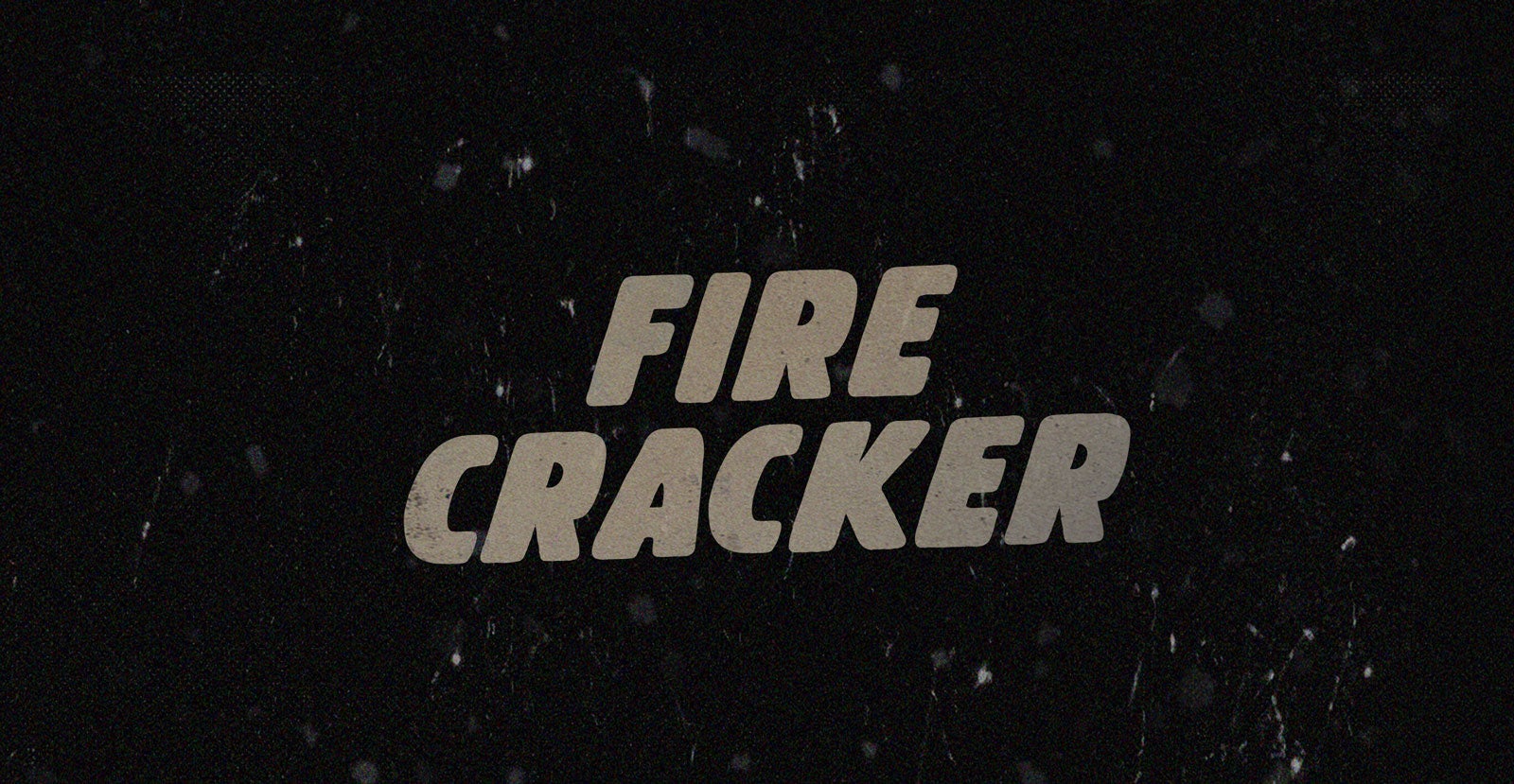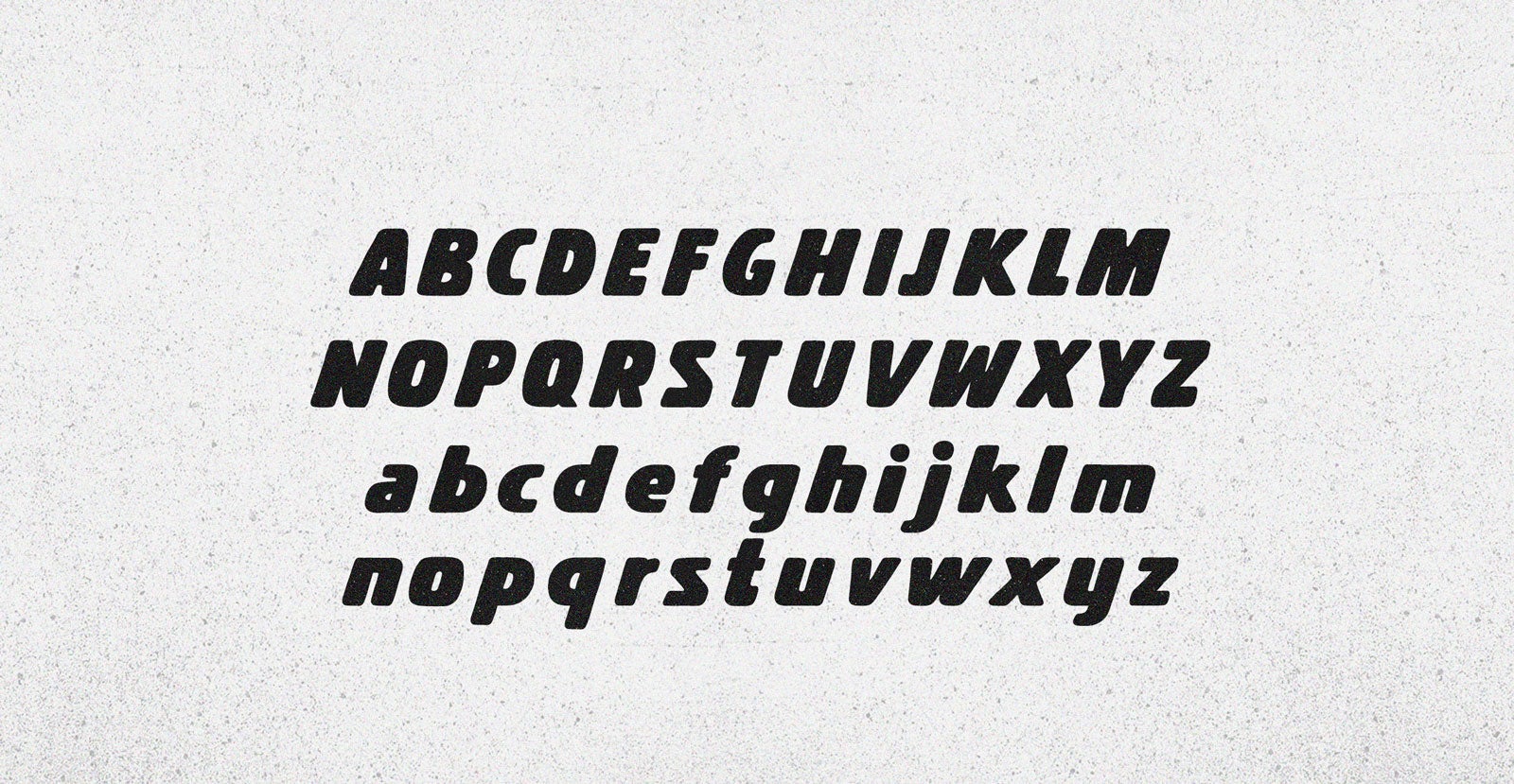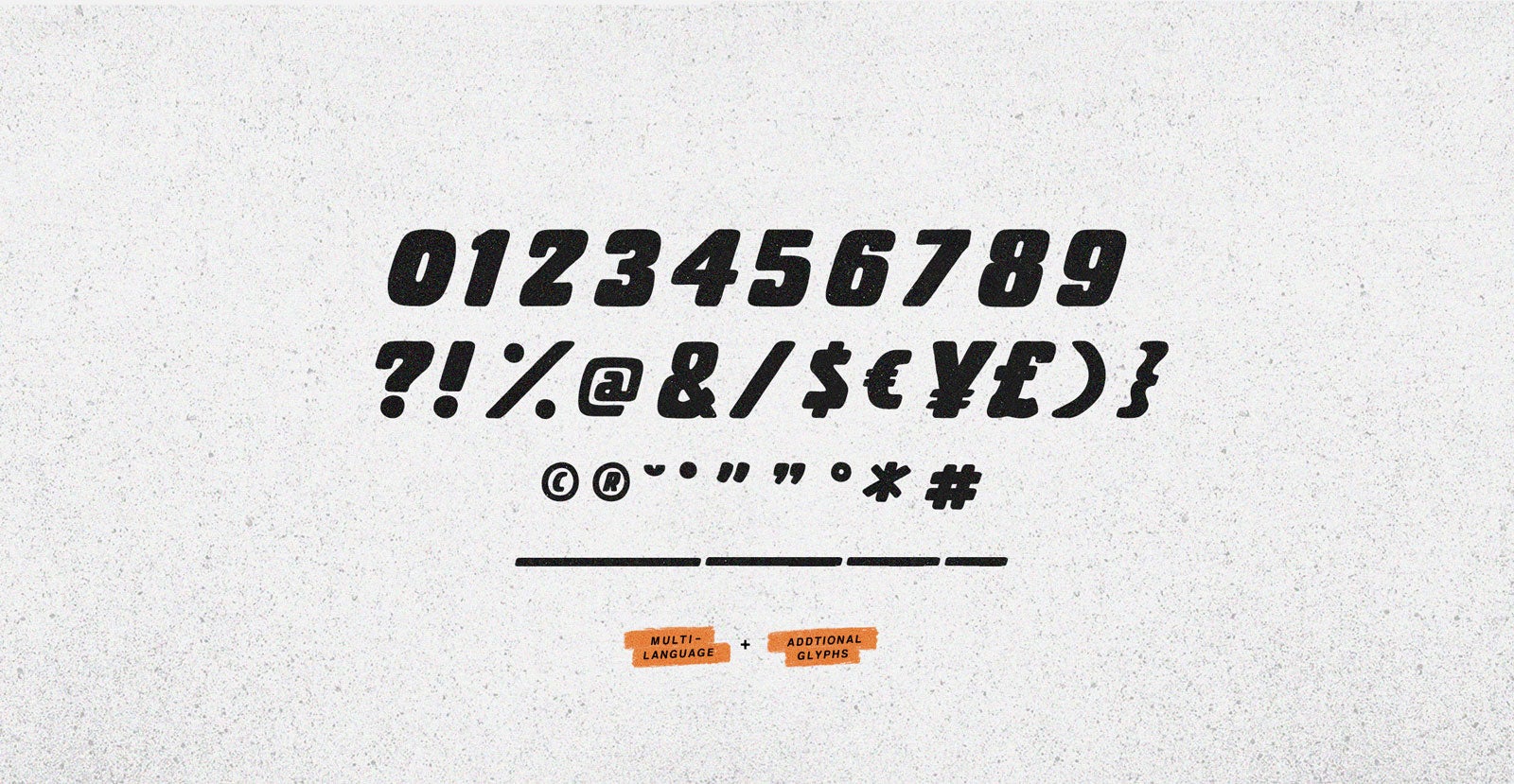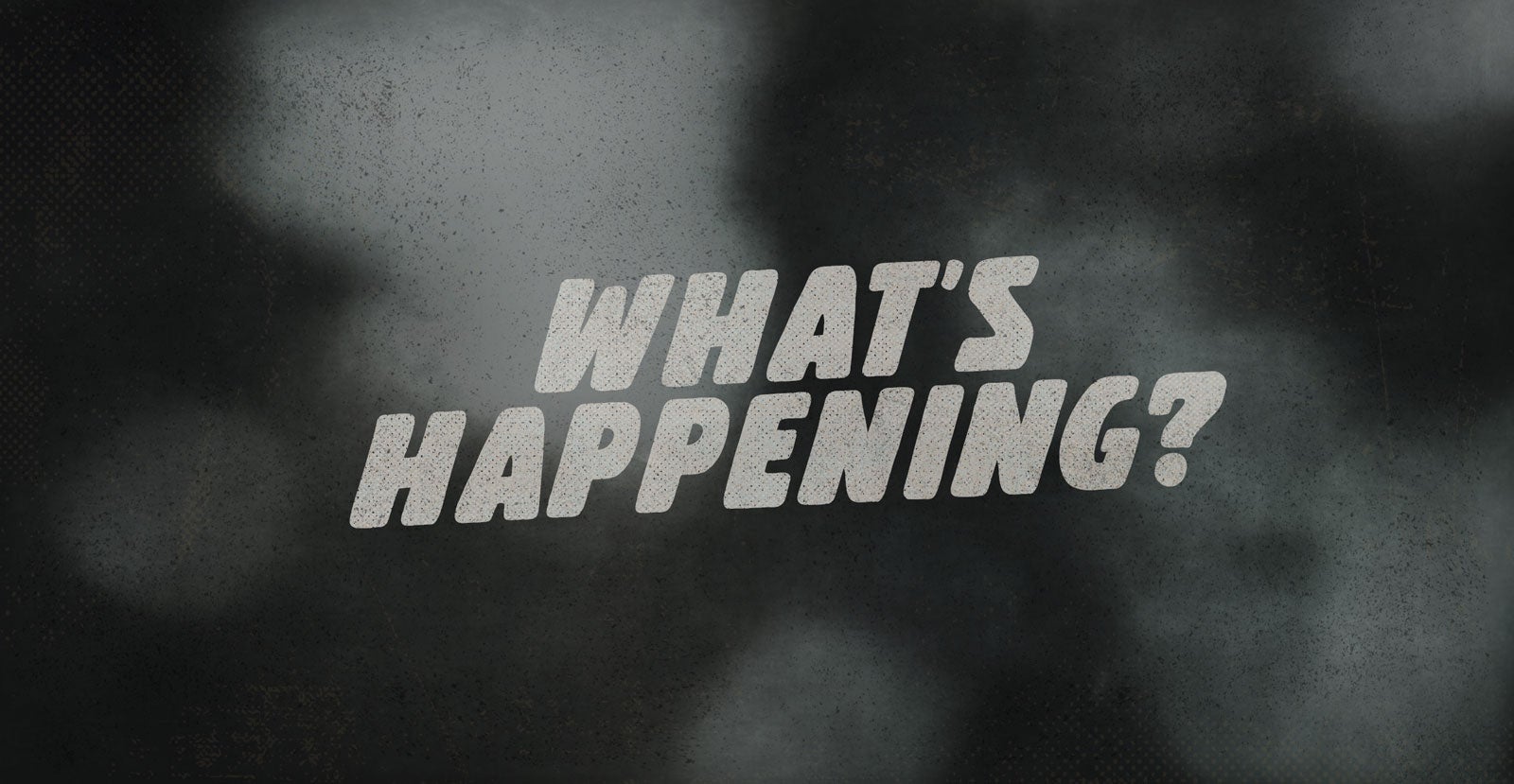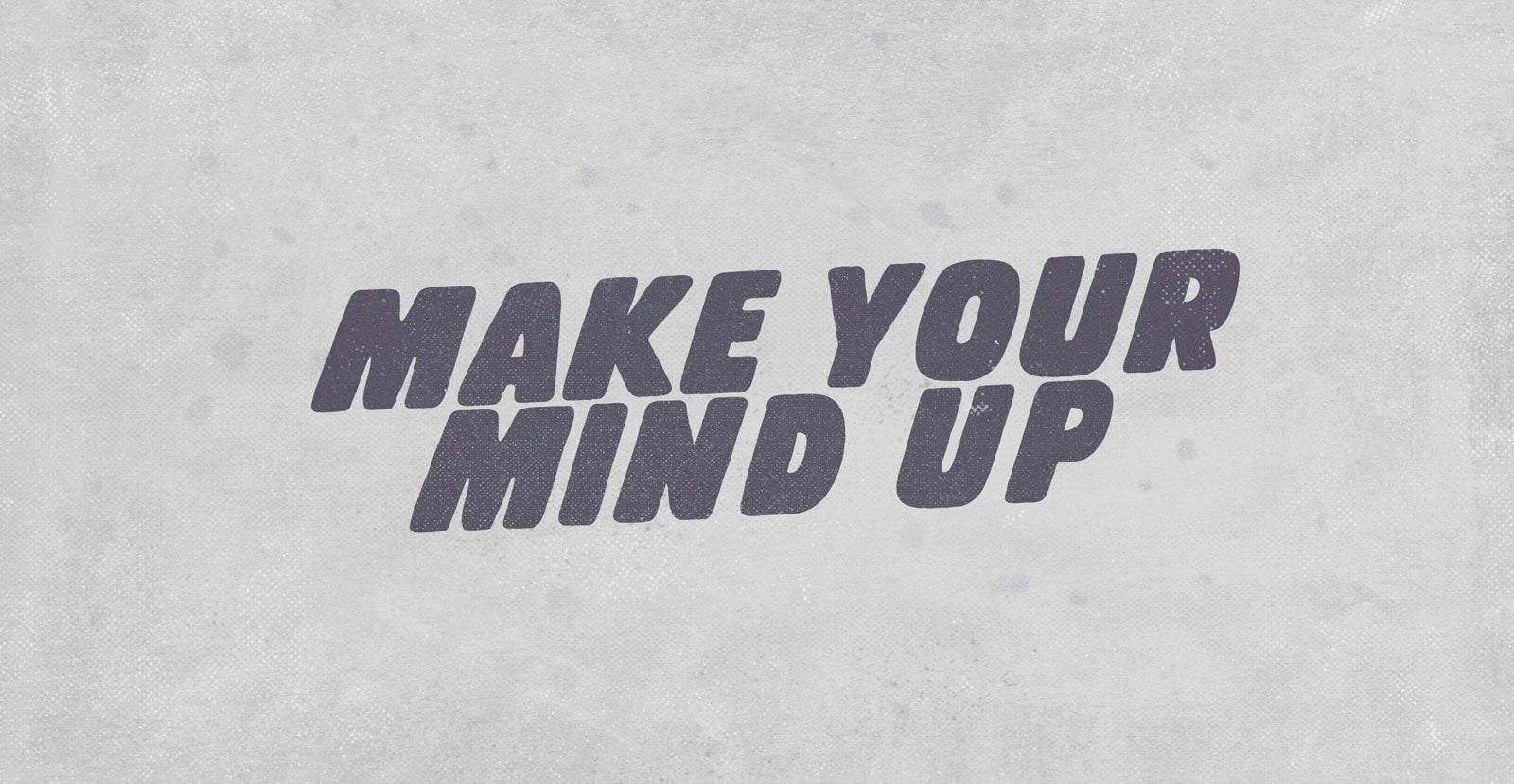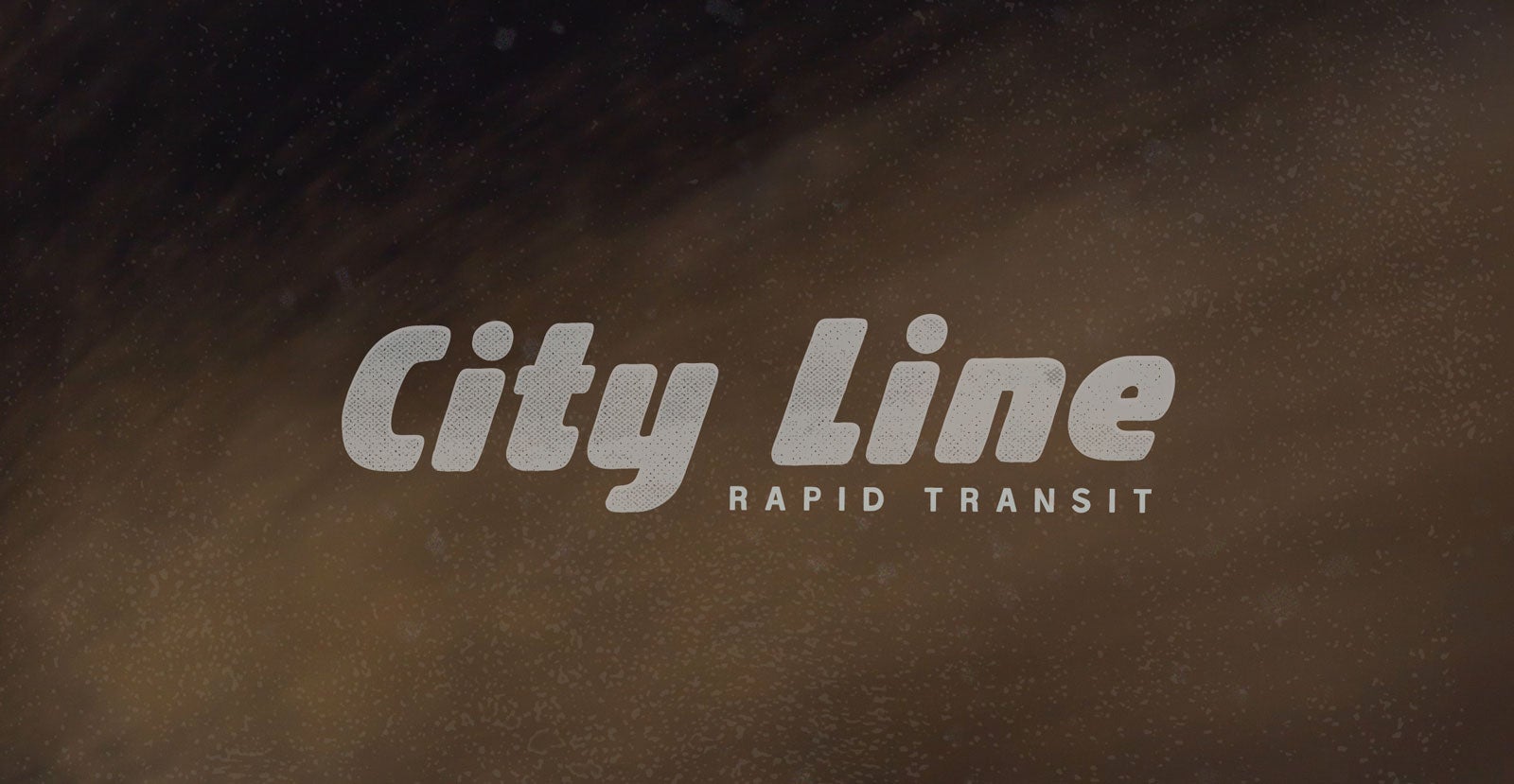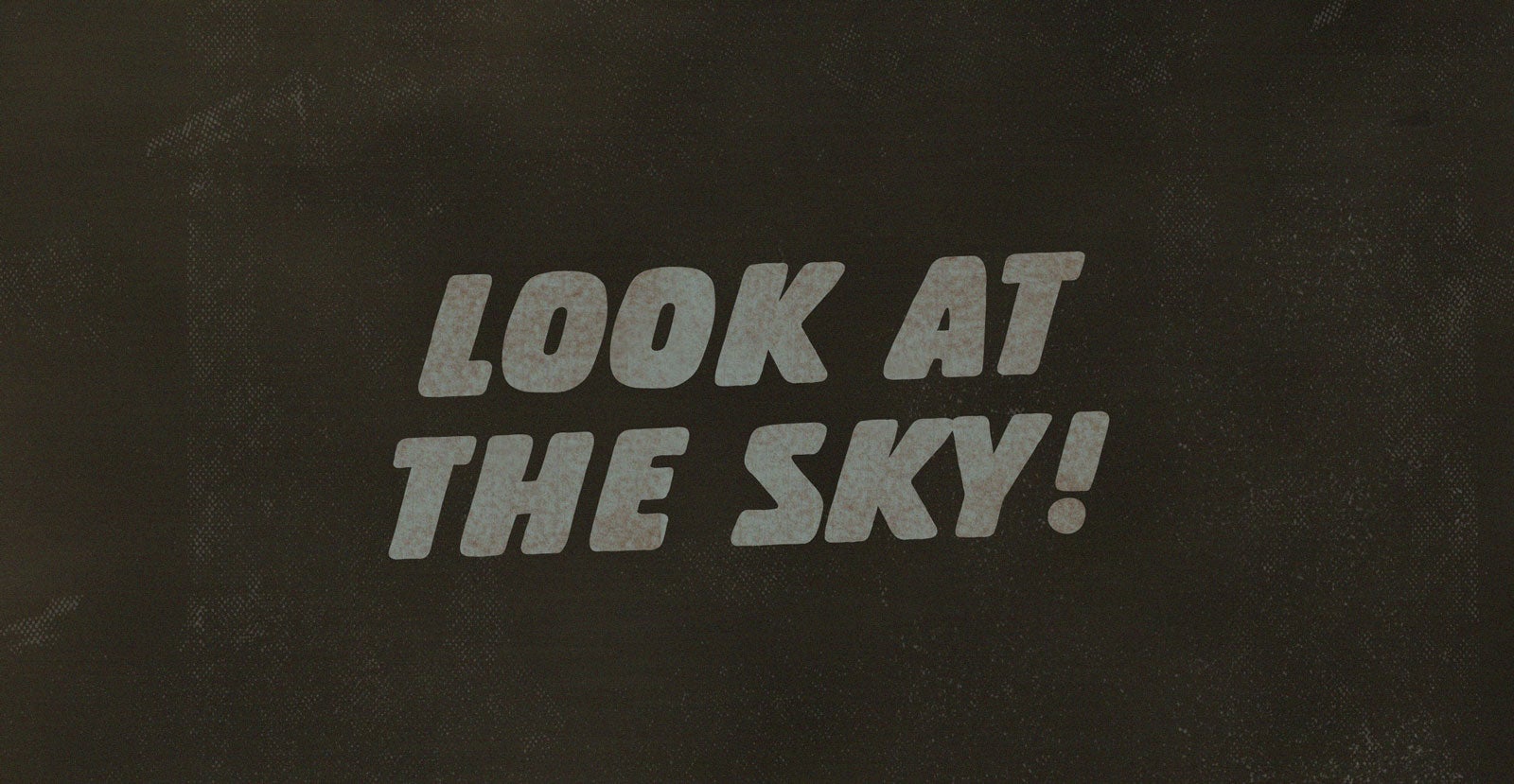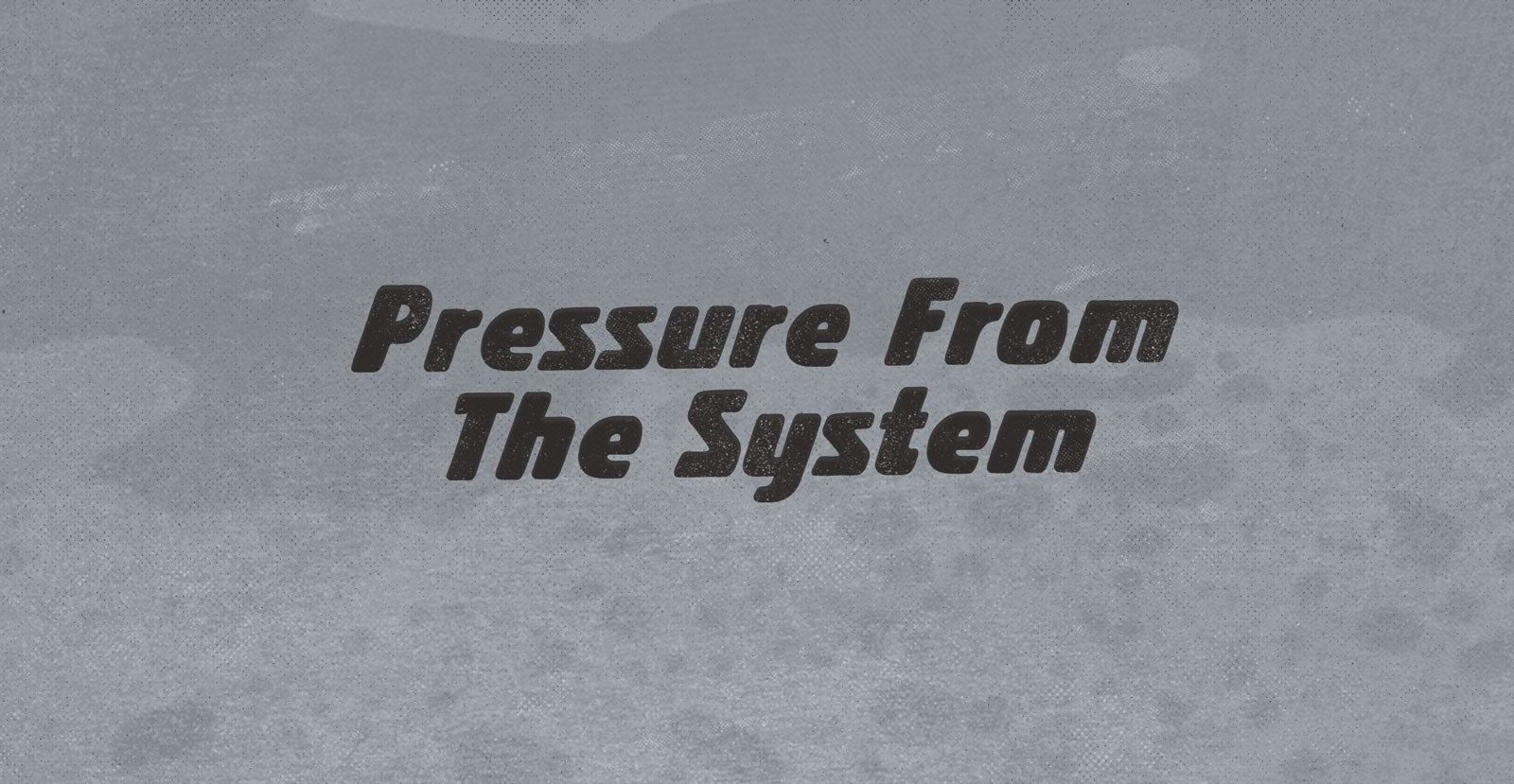
Fire Cracker
Handwritten Sans Serif Font
The whole time we were teething, we’d been blazing biscuits to a crisp. Eating like the only people you met to chew with a lisp. Grown to blow with the capacity of a blasting cap but still Fire Cracker compact and packed by the hundred, daisy chained to react.
• Underlines